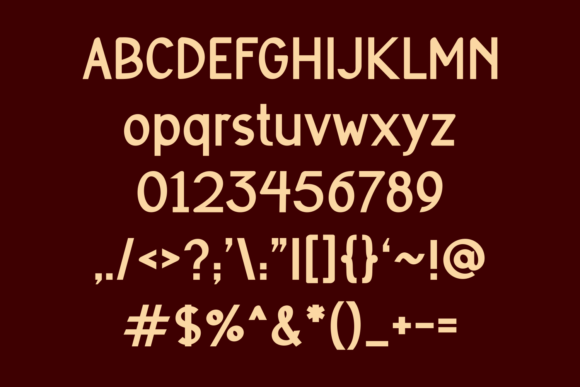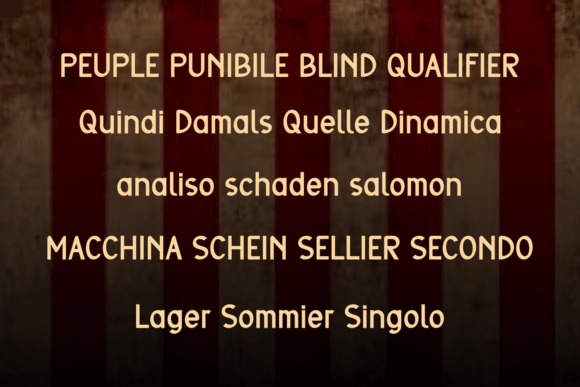
Baresno Font: Elevate Your Designs with a Casual and Neat Sans Serif
Are you on the hunt for a font that adds a touch of casual elegance to your projects? Look no further than Baresno, a beautiful sans serif font that’s perfect for designers and crafters alike. In this article, we’ll dive into the world of Baresno, exploring its features, benefits, and uses, and show you why it’s a must-have for your design toolkit.
What is Baresno Font?
Baresno is a modern sans serif font that’s designed to be both casual and neat. Its clean lines, simple shapes, and friendly vibe make it perfect for a wide range of projects, from branding and advertising to crafting and DIY tutorials. Whether you’re creating a logo, a poster, or a social media graphic, Baresno is a versatile font that will help you achieve your design goals.
Key Features of Baresno Font
- Casual and neat design: Baresno’s sans serif design is both modern and approachable, making it perfect for projects that require a friendly tone.
- Highly legible: Baresno’s clean lines and simple shapes ensure that your text is easy to read, even at small sizes.
- Versatile: Baresno is suitable for a wide range of projects, from digital designs to print materials.
- Easy to use: Baresno is a straightforward font to use, even for designers who are new to typography.
Benefits of Using Baresno Font
So why should you choose Baresno for your next project? Here are just a few benefits of using this amazing font:
- Adds a touch of elegance: Baresno’s clean design and simple shapes add a touch of sophistication to any project.
- Boosts readability: Baresno’s high legibility ensures that your text is easy to read, even for readers who struggle with complex fonts.
- Saves time: Baresno is a pre-designed font that saves you time and effort, allowing you to focus on the creative aspects of your project.
- Enhances branding: Baresno’s unique design helps to create a consistent brand identity that sets you apart from the competition.
How to Use Baresno Font in Your Projects
Using Baresno in your projects is easy! Here are a few tips to get you started:
- Pair it with other fonts: Baresno pairs well with other sans serif fonts, as well as script fonts and serif fonts.
- Experiment with colors: Baresno looks great in a range of colors, from bold and bright to pastel and subtle.
- Use it for headings and body text: Baresno is suitable for both headings and body text, making it a versatile addition to your design toolkit.
Who is Baresno Font Suitable For?
Baresno is a versatile font that’s suitable for a wide range of designers and crafters, including:
- Graphic designers: Baresno is perfect for graphic designers who need a clean and modern font for their projects.
- Crafters: Baresno is great for crafters who want to add a personal touch to their DIY projects.
- Small business owners: Baresno is a great choice for small business owners who want to create a professional brand identity.
In conclusion, Baresno is a casual and neat sans serif font that’s perfect for designers and crafters who want to add a touch of elegance to their projects. With its clean design, high legibility, and versatility, Baresno is a must-have for any design toolkit. So why wait? Add Baresno to your projects today and see the difference for yourself!